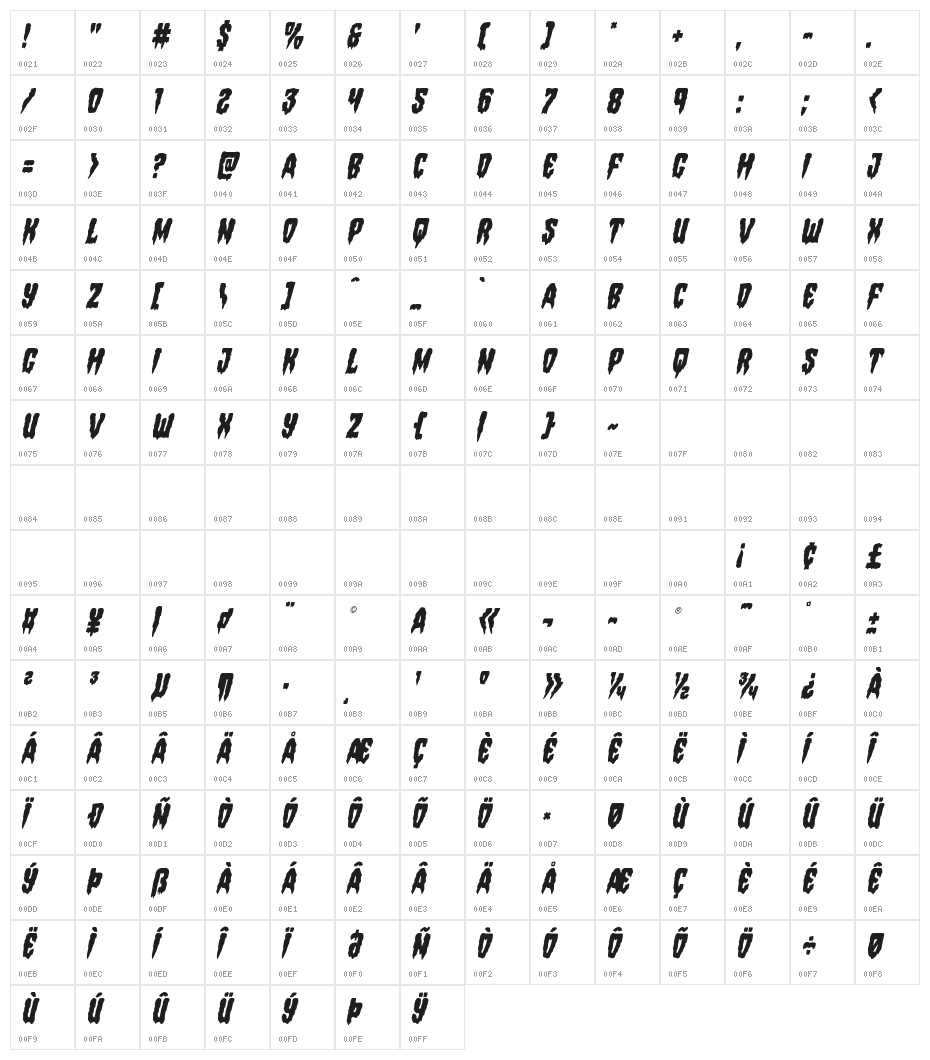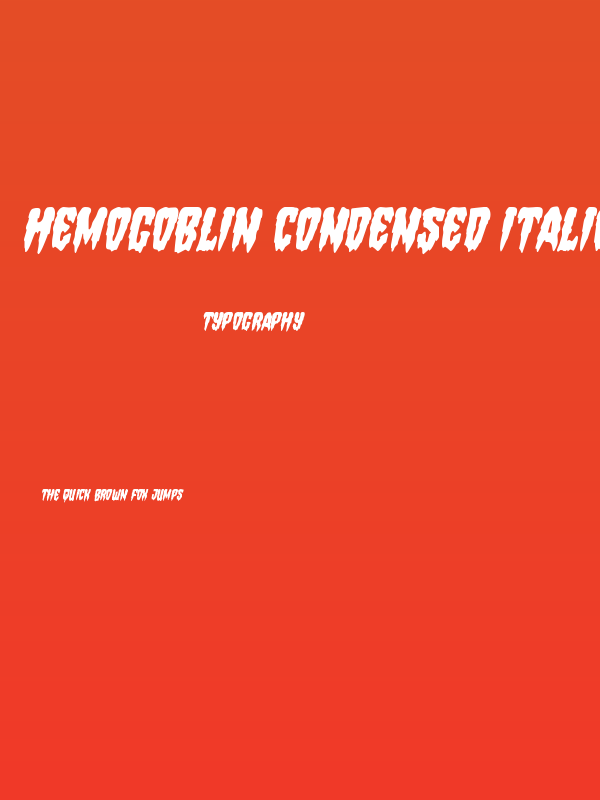
Hemogoblin Condensed Italic Font
Hemogoblin Condensed Italic Description
This font features a bold and dynamic style with jagged, irregular edges that give it a distressed, grunge-like appearance. The condensed form enhances its compactness, making it suitable for impactful designs. The italic slant adds a sense of motion and urgency, perfect for attention-grabbing headlines or thematic projects. Its unique character shapes and high contrast between thick and thin strokes contribute to its distinctive look, making it ideal for creative and unconventional design applications.
| Proposed Projects | Ideal for horror-themed posters, edgy branding, album covers, and video game graphics. |